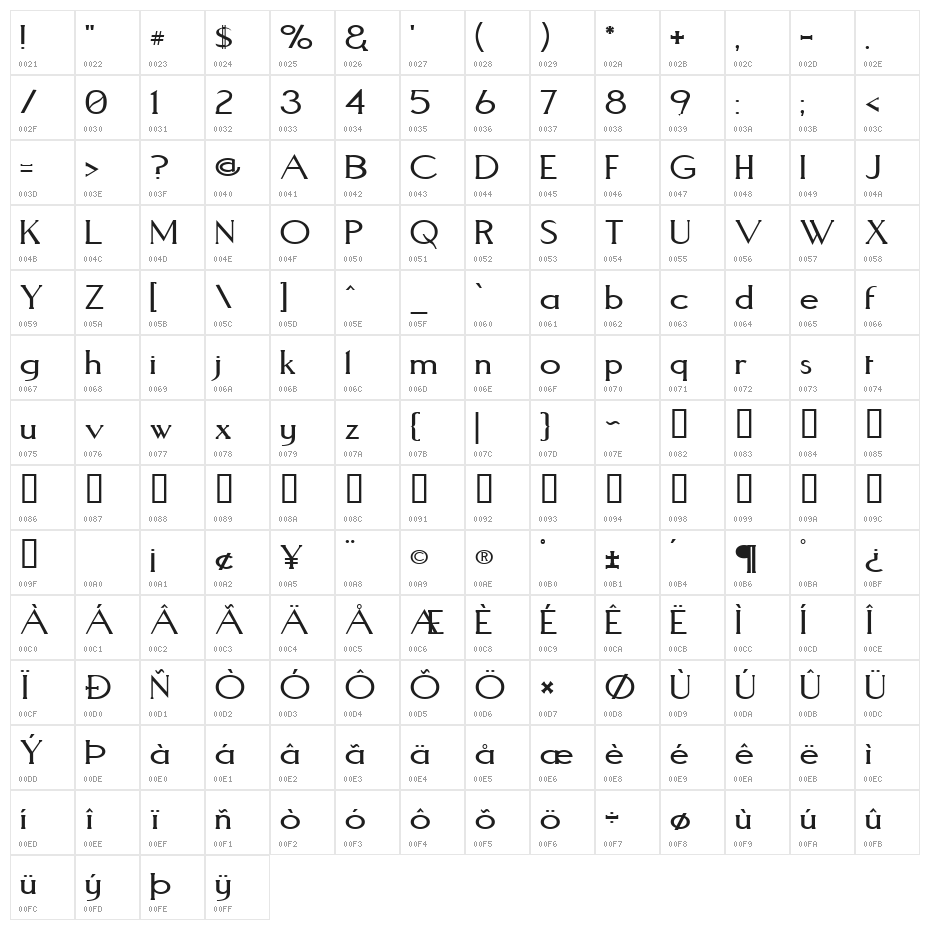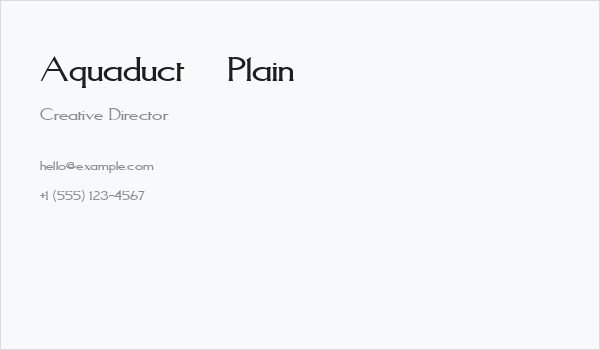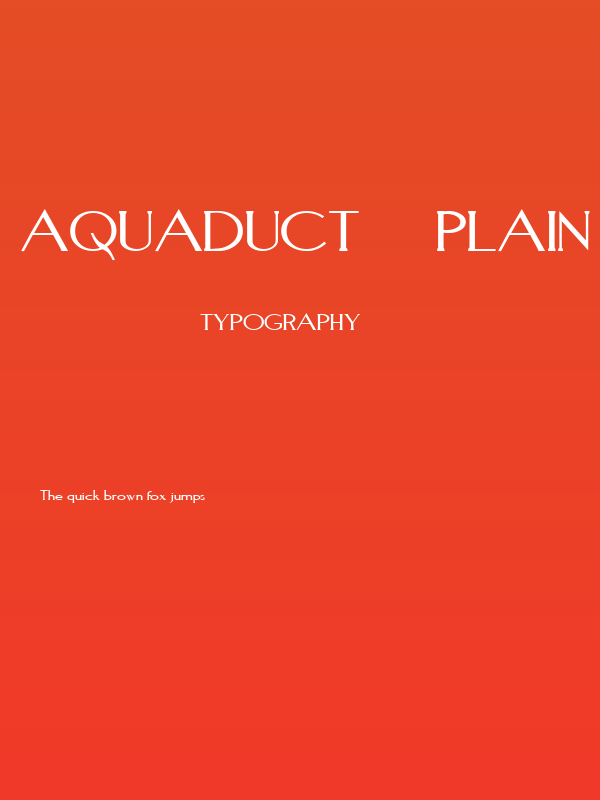
Aquaduct Plain Font
Aquaduct Plain Description
This font features a distinctive and elegant design, characterized by its sharp serifs and high contrast between thick and thin strokes. The uppercase letters exhibit a classic and sophisticated style, with a slight flair on the serifs that adds a touch of uniqueness. The lowercase letters maintain a consistent flow, with rounded curves that complement the sharpness of the uppercase. The numerals are bold and clear, ensuring readability, while the special characters are crafted to match the overall aesthetic. This font's design is both timeless and versatile, making it suitable for a variety of applications.
| Use Case | Headlines, Logos, Editorial design |
| Proposed Projects | Ideal for luxury branding, editorial design, book covers, and formal invitations. |